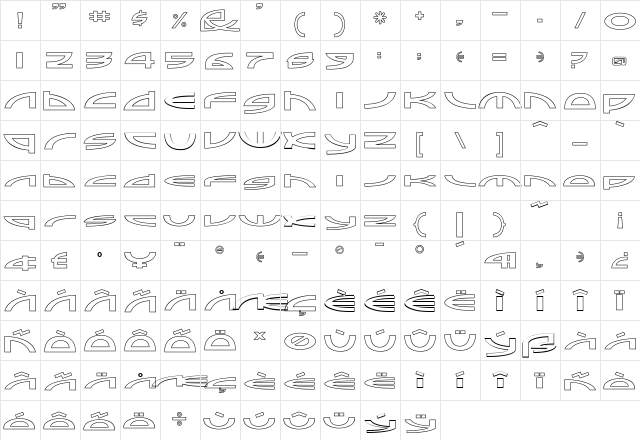
Sampler Italic
Design Context for Sampler Typeface
Sampler is a composed and adaptable typeface that performs quietly and consistently across a wide range of design contexts. Its italic angle brings a sense of urgency and motion to the letterforms.